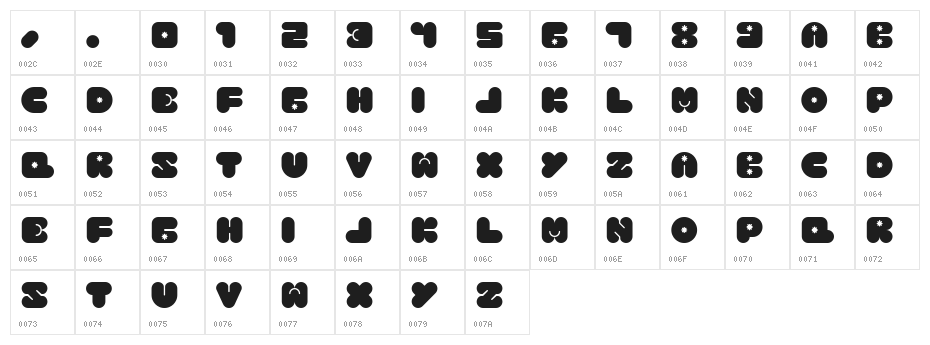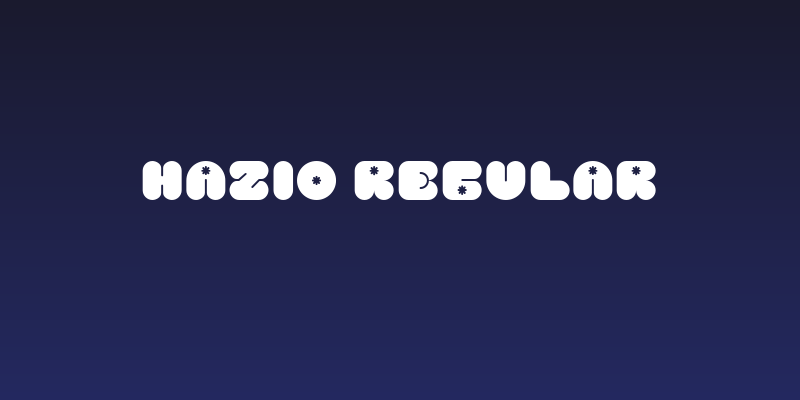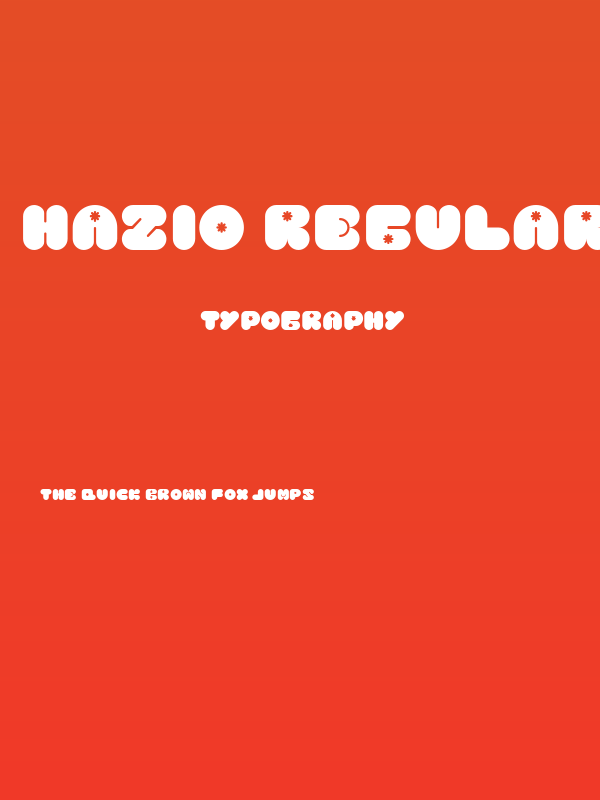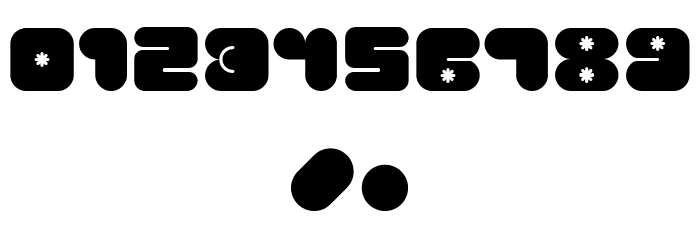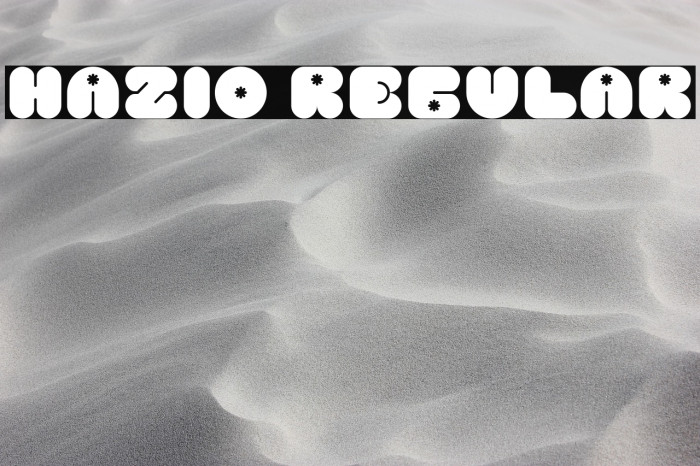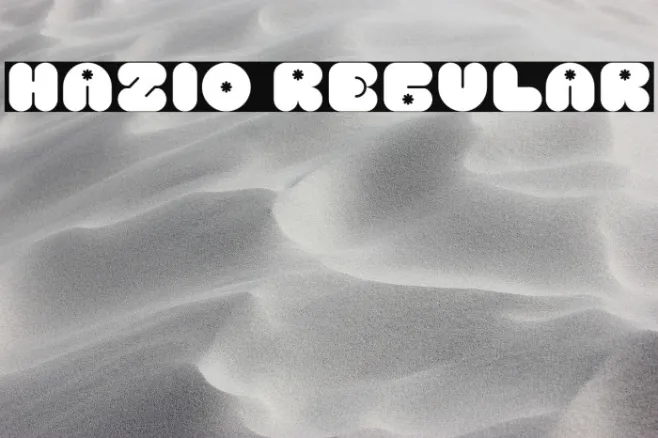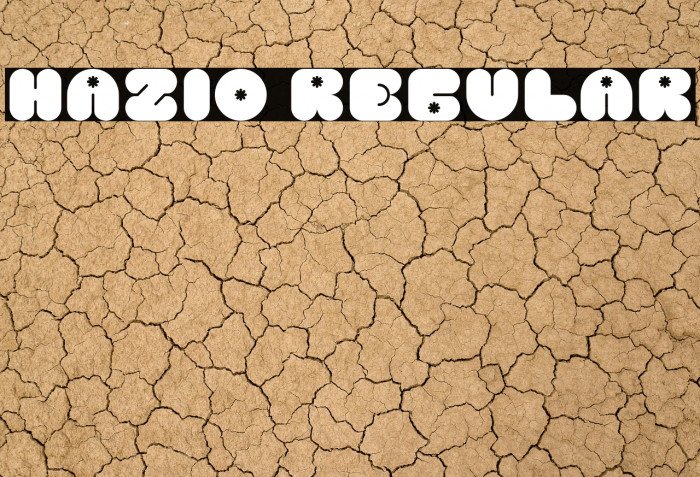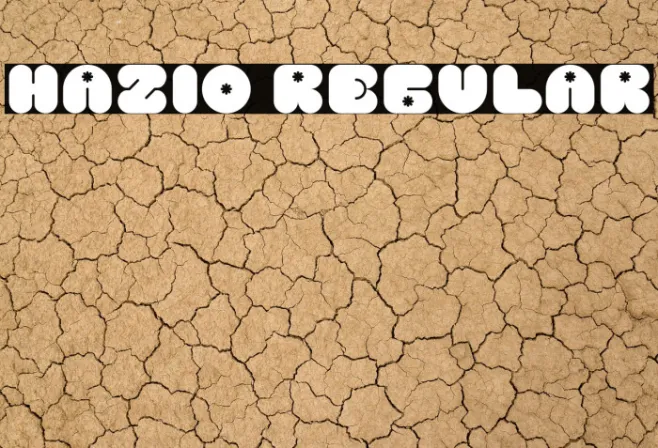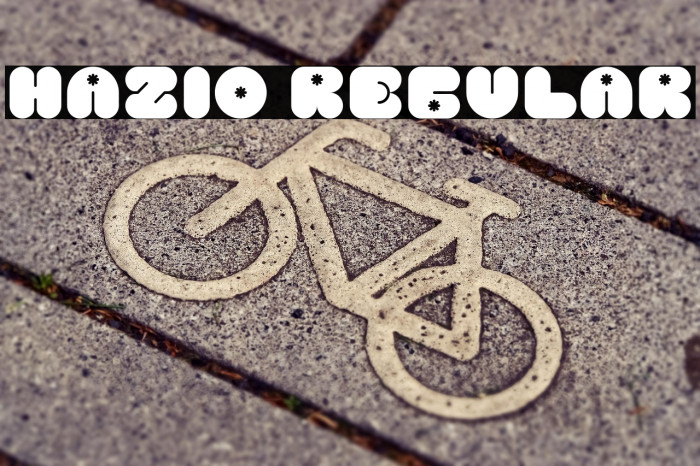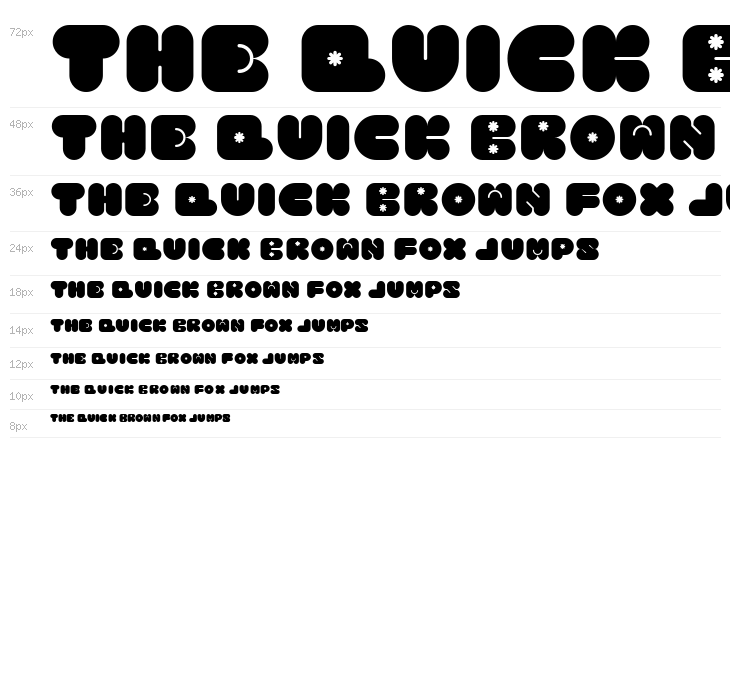
Hazio Regular Font
Hazio Regular Description
This font features a bold and playful design with rounded edges and a unique decorative element inside each character, resembling a star or snowflake. The characters are uniformly thick, giving a strong and solid appearance. The style is distinctly modern and eye-catching, making it suitable for creative and fun projects. The numbers and special characters maintain the same playful aesthetic, ensuring consistency across all text elements. The font's design is highly decorative, making it ideal for use in headlines or logos where a bold statement is desired.
| Proposed Projects | Ideal for children's book covers, playful branding, event posters, or any project requiring a fun and bold typeface. |